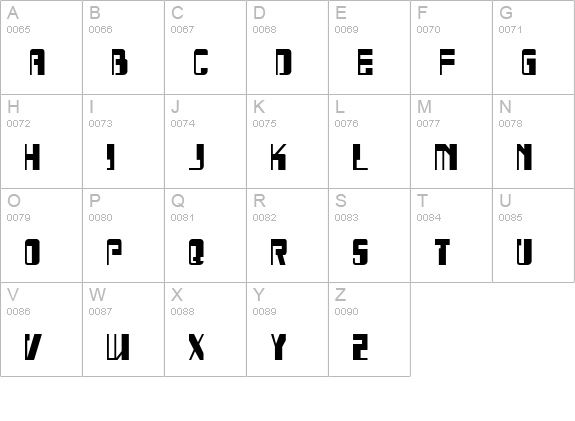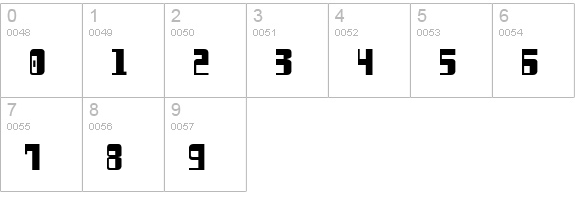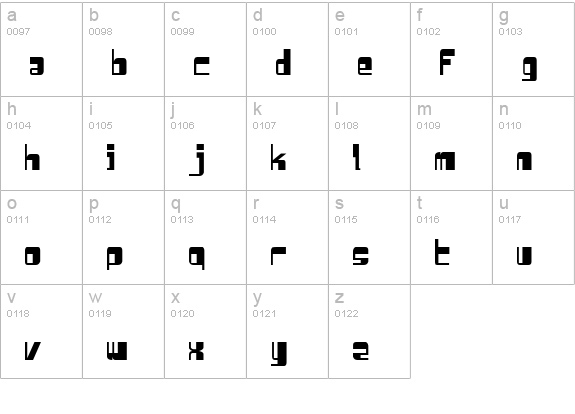
Drosselmeyer Condensed Font Details
Drosselmeyer Condensed is a distinctive, condensed-width variant in the Drosselmeyer typeface family \xE2\x80\x94 well suited to design and typography projects.
Drosselmeyer Condensed font exudes a perfect balance between elegance and modernity. Its sleek and stylish design makes it ideal for a wide range of creative projects, from branding to editorial design. The condensed form adds a touch of sophistication, perfect for conveying a sense of professionalism and refinement. Best of all, Drosselmeyer Condensed font is completely free to download at FontsMarket.com. This means you can elevate your designs without breaking the bank. Whether you're working on a logo, website, or any other project that requires a refined typography choice, Drosselmeyer Condensed font is sure to impress. Download it today and see the difference it can make in your designs.